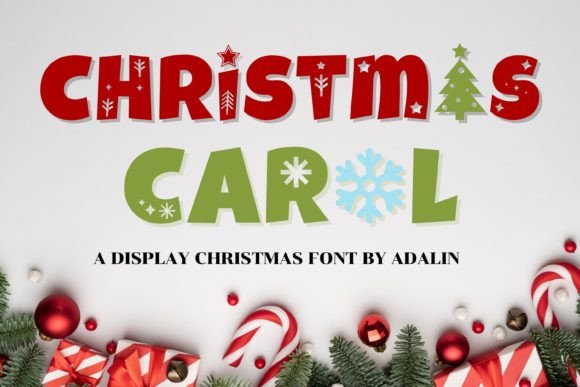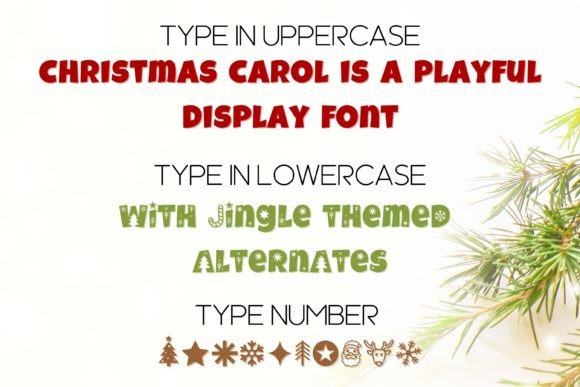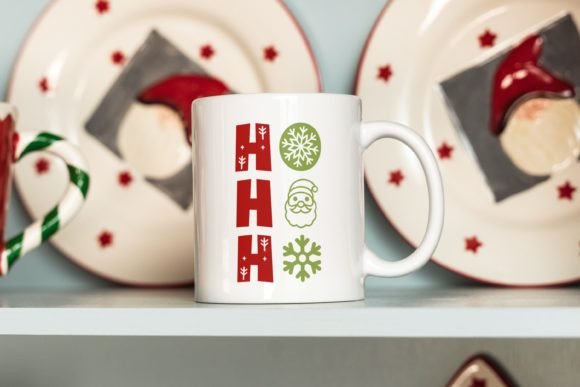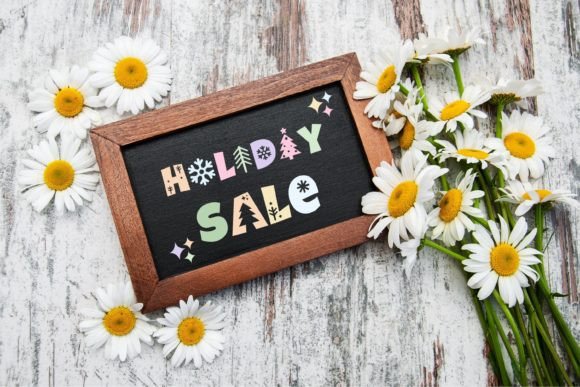
Christmas Carol Font
Christmas Carol is a cute decorative Christmas Font ideal for crafting, Cricut, procreate, Christmas gifts, kids’ projects, Christmas cards, Social Media Designs, Signs, t-shirt designs, greeting cards, invitations, mugs, banners, and much more!